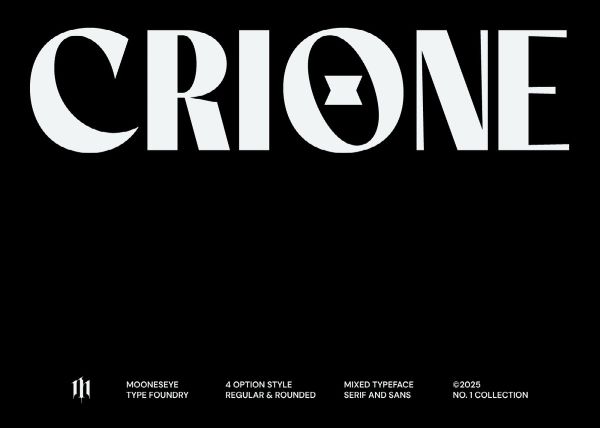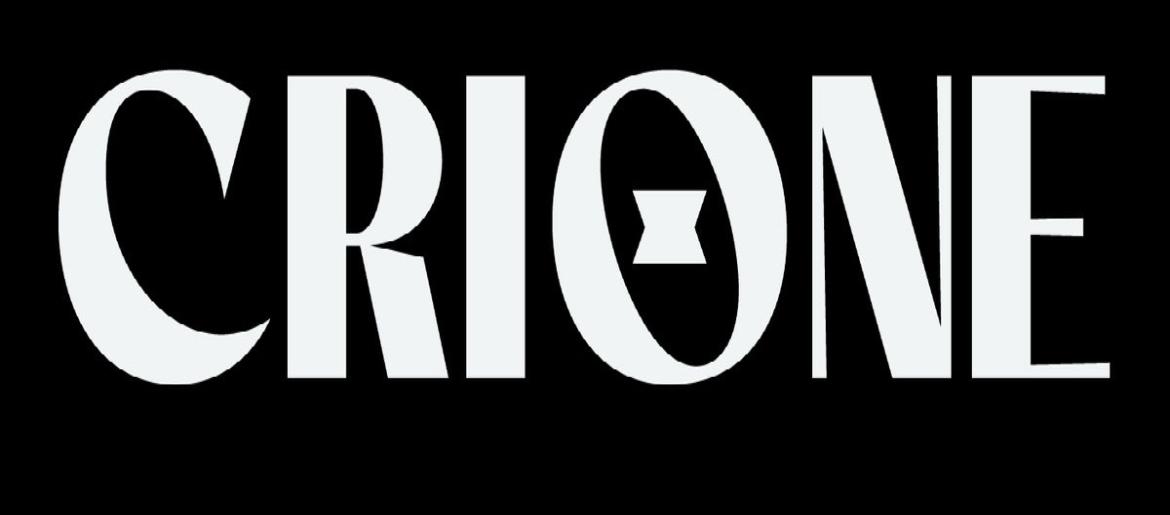
Crione Font
Crione by Mooneseye Type is a striking display typeface that carries the same Gothic-influenced design sensibility as the studio’s broader work — confident letterforms that blend traditional typographic heritage with a refined contemporary edge. Its clean construction and strong visual presence make it well suited to monogram logos, logotypes, editorial headers, and premium branding contexts where a typeface needs to assert authority without sacrificing elegance. A free demo version is available for personal use, offering a generous introduction to a typeface with genuine depth of character.
Crione is a bold display typeface with Gothic influences in our free font collection, from Indonesia-based Mooneseye Type — a creative type studio producing carefully crafted typefaces that navigate the space between historical tradition and modern design sensibility. Browse our full library of free fonts and discover more distinctive typefaces crafted by independent designers around the world.